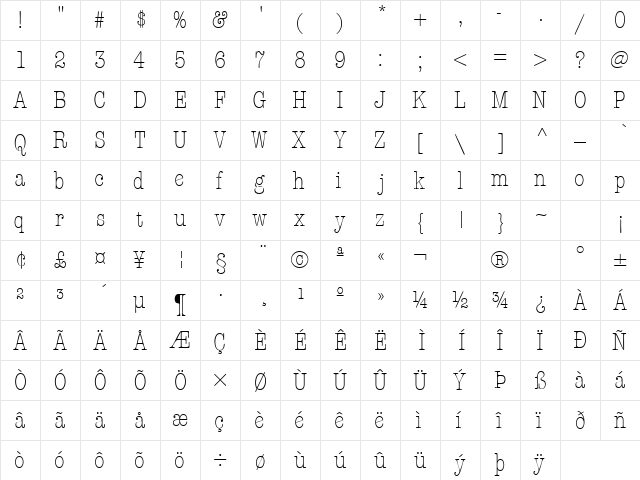
KeyboardLightCondAltSSK Regular
Design Context for KeyboardLightCondAltSSK Typeface
KeyboardLightCondAltSSK is a composed and adaptable typeface that performs quietly and consistently across a wide range of design contexts. The delicate stroke weight brings airiness and refinement to layouts. The condensed width makes it efficient for tight spaces without sacrificing legibility.